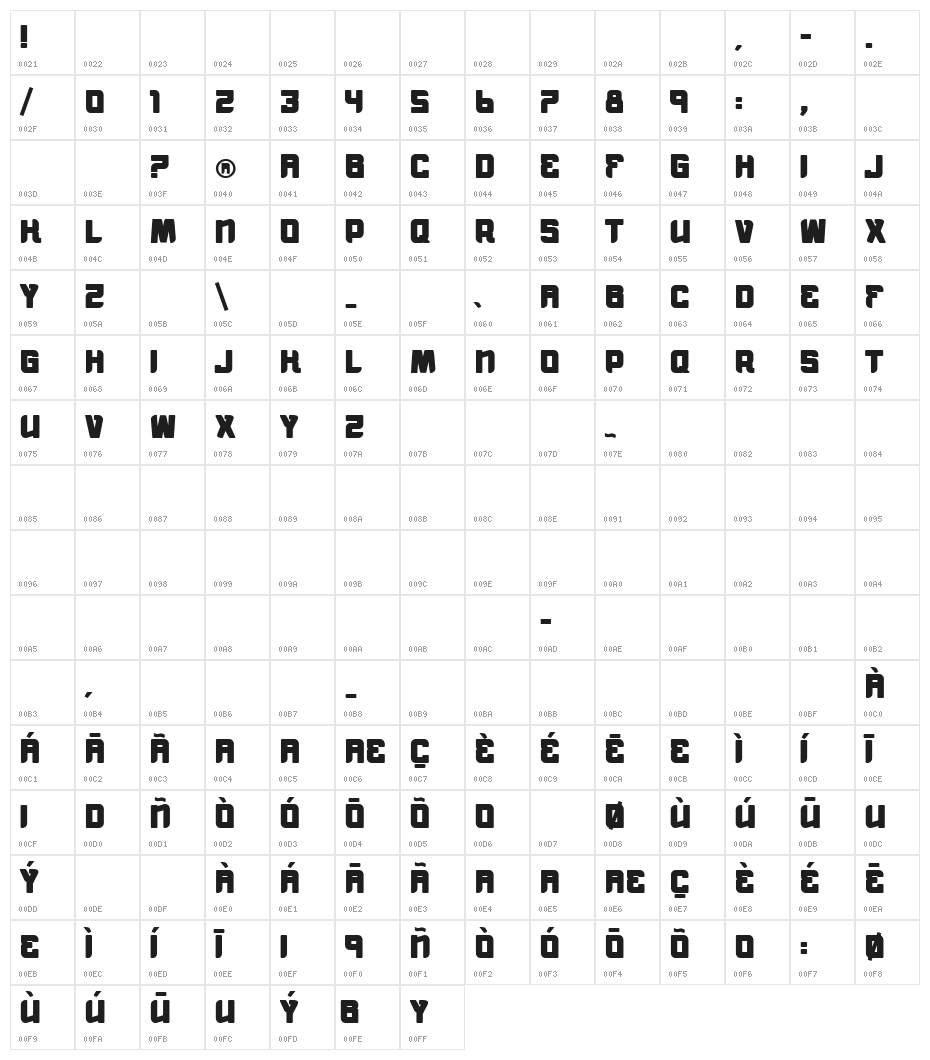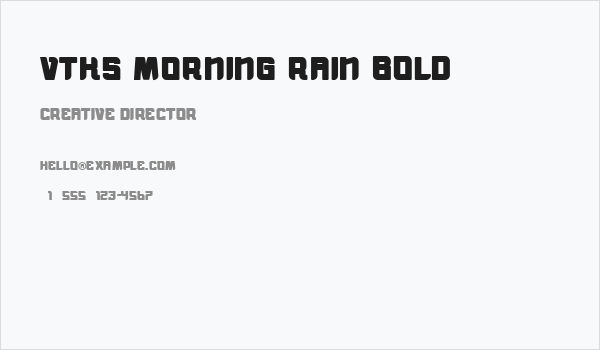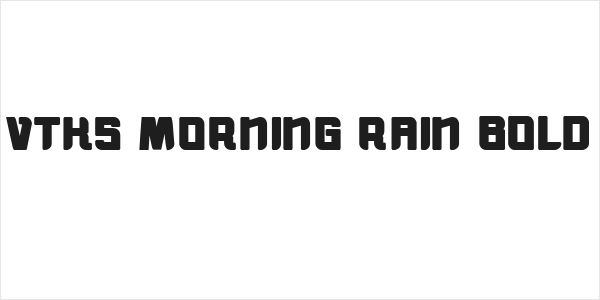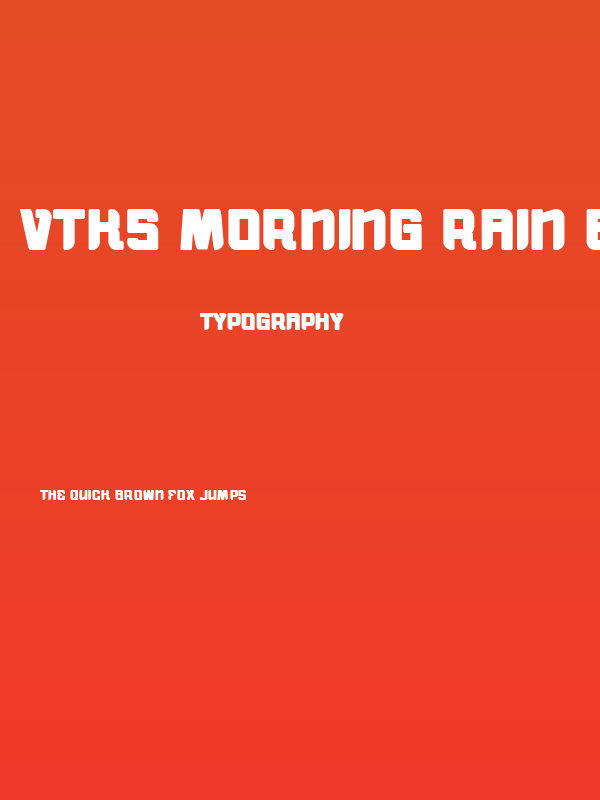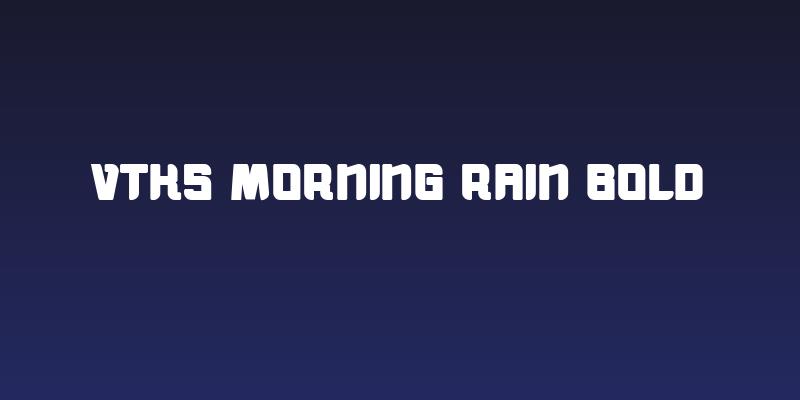
vtks morning rain BOLD Font
vtks morning rain BOLD Description
This bold and striking font features a strong, geometric design with thick, blocky characters. The uppercase letters are uniform in height, creating a cohesive and powerful appearance. The font's boldness is emphasized by its solid, filled-in strokes, which give it a commanding presence. The numbers and special characters maintain the same bold style, ensuring consistency across all elements. This font is highly legible and makes a strong visual impact, suitable for attention-grabbing designs.
Proposed ProjectsIdeal for posters, headlines, logos, and branding materials that require a bold statement.